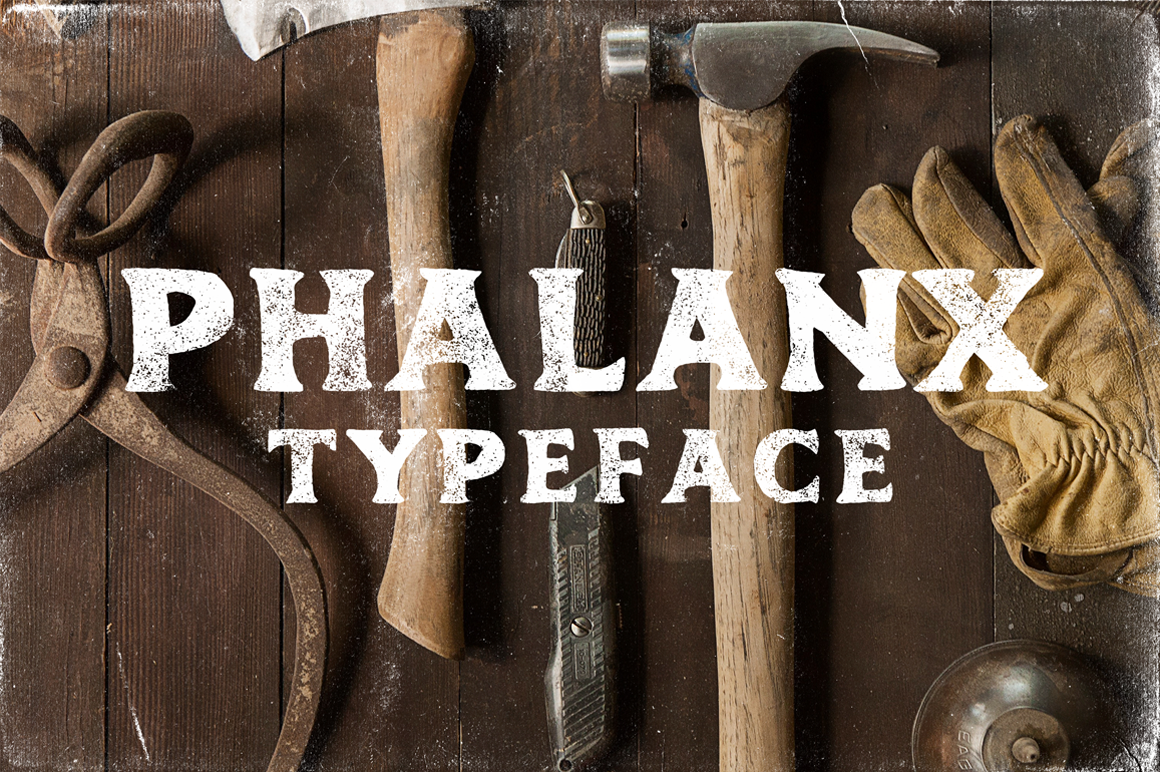
Phalanx Typeface
Phalanx is a vintage, hand-drawn typeface inspired by print catalogues from the early 1900s. It's perfect for adding some personality and character to your designs!
The typeface includes the full alphabet along with numbers. If there is enough interest I will happily add in some symbols and punctuation, so let me know!